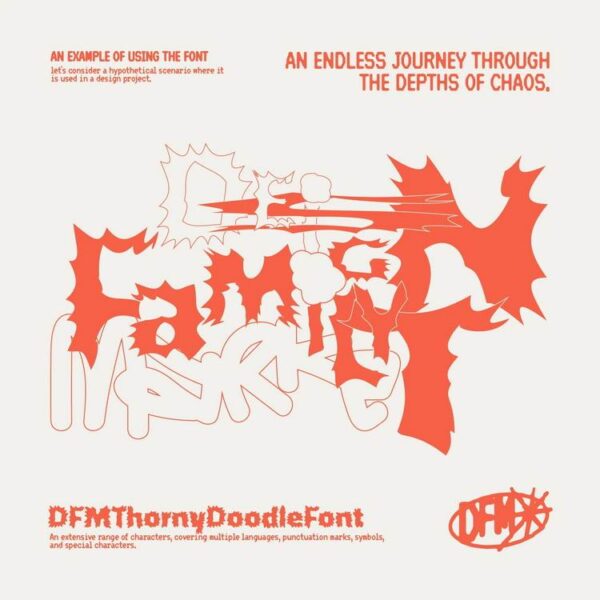
DFM Thorny Doodle Font
DFM Thorny Doodle Font ~ Sharp Distressed Free Y2K Font
Обзор шрифта: DFM Thorny Doodle Font ~ Sharp Distressed FREE Y2K Font
✦ DFM Thorny Doodle Font is a unique and edgy decorative FREE font. With its sharp corners, thorny elements, and slightly distressed appearance, this font exudes a rebellious, captivating charm, and modern Y2K vibe.
✦ DFM Thorny Doodle Font will give your design project a distinct and unconventional aesthetic. It appears as if the letters have been bitten or torn, creating an intriguing visual texture. This font is perfect for designs that call for a bold and modern look, adding an element of rawness and intensity.